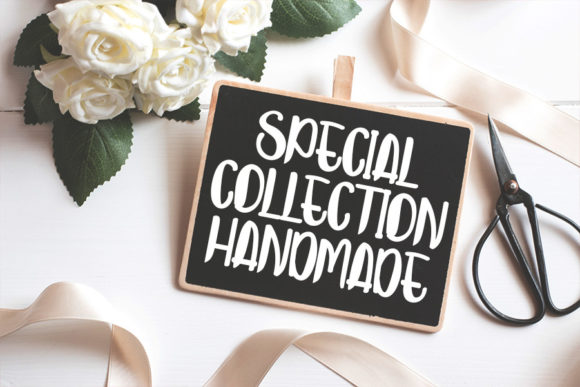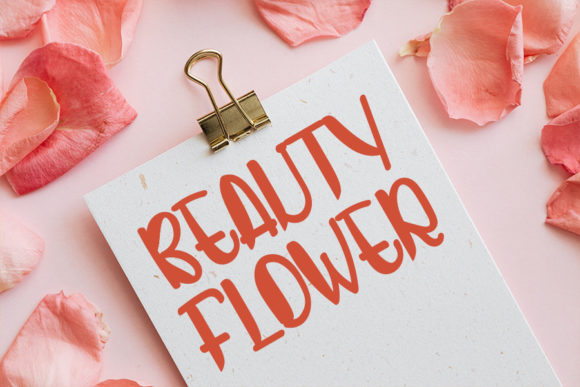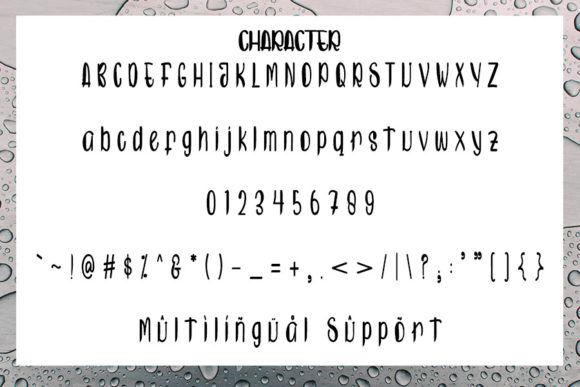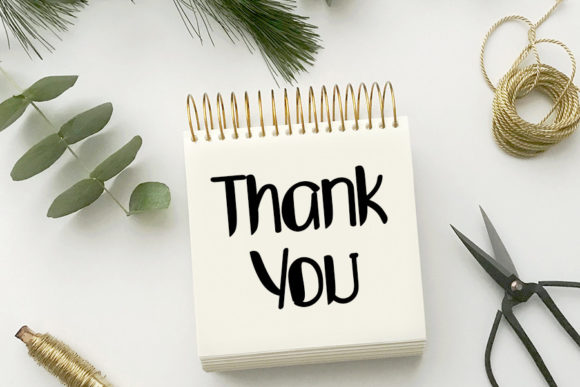
Introduction to Likely Most Font
Have you ever stared at a blank canvas, your mind racing with ideas, and your fingers itching to create something beautiful? That’s exactly where I was when I stumbled upon the Likely Most Font – a game-changing display font that instantly sparked my imagination.
As a designer, I’m always on the lookout for the perfect font to elevate my creative projects. And when I discovered the Likely Most Font, I knew I had found a treasure trove of design resources. Its sleek and well-spaced design makes it perfect for any project that requires a touch of elegance and sophistication. Whether you’re working on a logo, a social media graphic, or a website, this font is sure to bring your design to life.
What I love most about the Likely Most Font is its versatility and high quality. It’s available for free download, making it an accessible design resource for designers of all levels. Plus, its transparent background allows for seamless integration with any background, giving you complete creative control.
Key Features of Likely Most Font
- High-quality design resource suitable for various creative projects, including digital and print materials.
- Transparent background option allows for seamless integration with images and other design elements.
- Designed with high resolution (300 DPI) for use in high-quality prints and digital displays.
- Unique, modern design aesthetic that can add a touch of sophistication to any creative project.
Honest Review: Likely Most Font
I recently had the chance to work with Likely Most Font, a unique design resource that has been gaining popularity in the creative community. I must say, I was impressed by its versatility and high quality.
- ✨ The font is incredibly versatile, suitable for a wide range of creative projects, from graphic design to digital art.
- ✨ The high quality of the font ensures crisp and clear typography, even on transparent backgrounds.
- ⚠️ The font’s uniqueness can be both a blessing and a curse. While it stands out in creative projects, it may not be suitable for more traditional or conservative designs.
- ⚠️ The font’s complexity can make it challenging to pair with other fonts, so it’s essential to have a solid understanding of typography principles.
Overall, I’m impressed with Likely Most Font’s potential and versatility. While it may have some limitations, its high quality and unique style make it an excellent addition to any designer’s toolkit. I’d highly recommend it for creative projects that require a bold and eye-catching font.
The Likely Most Font is a versatile design resource ideal for creative projects. With its high-quality and unique design, it can add a professional touch to any visual content.
Tips and Best Practices
To get the most out of the Likely Most Font, consider the following tips:
- Use the font on a transparent background to create a modern and sleek look.
- Combine the font with high-quality images to create visually appealing content.
- Experiment with different font sizes and styles to create a unique design.
The Likely Most Font is suitable for various creative projects, including:
- Business presentations
- Website designs
Does Likely Most Font have a transparent background?
Yes, Likely Most Font has a transparent background, making it perfect for designs that require a clean and minimalist look. The font’s transparent background allows you to easily place text over images or other design elements without any visual clutter.